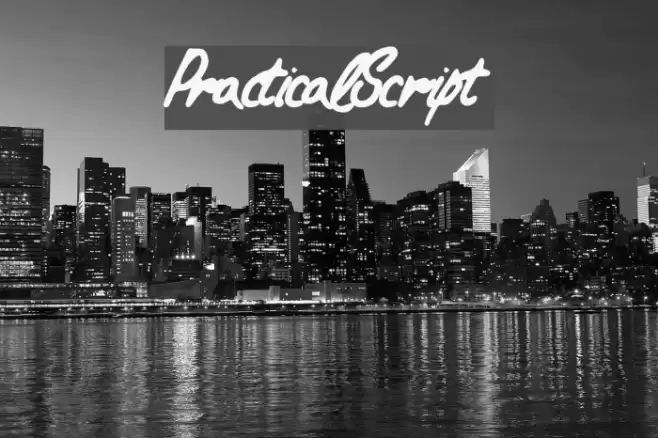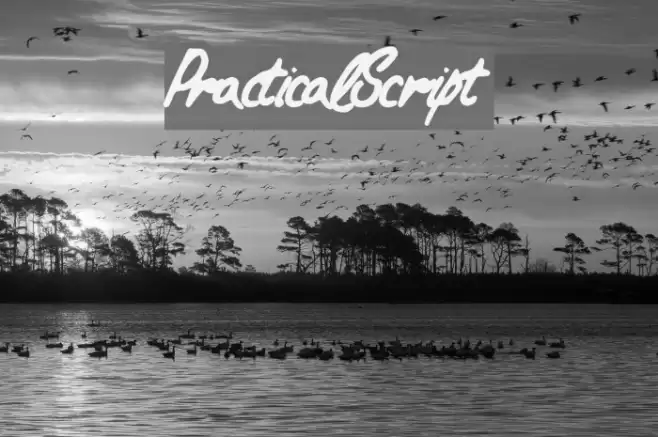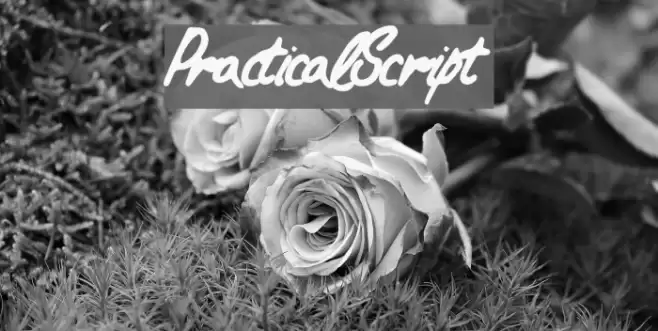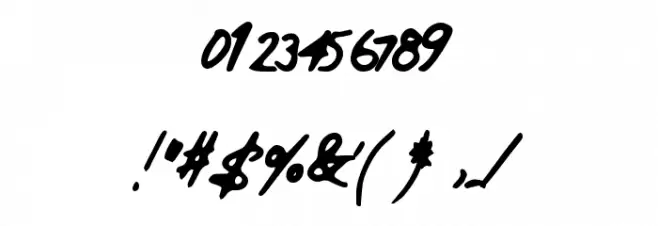
PracticalScript Font
PracticalScript Description
This font embodies a dynamic and fluid script style, characterized by its bold and expressive strokes. The letters are connected in a cursive manner, giving it a handwritten appearance that is both elegant and casual. The uppercase letters are slightly larger and more pronounced, while the lowercase letters maintain a consistent flow. Numbers and special characters are integrated seamlessly, maintaining the overall aesthetic. The font's design is suitable for projects that require a personal touch, such as invitations, greeting cards, or branding materials. Its boldness ensures readability while adding a touch of sophistication.
A bold, expressive script font with a fluid, handwritten style from Uncategorized fonts.
- Proposed Projects: Ideal for invitations, greeting cards, branding, and personal projects.
- Use Case: Logos, Headlines, Invitations